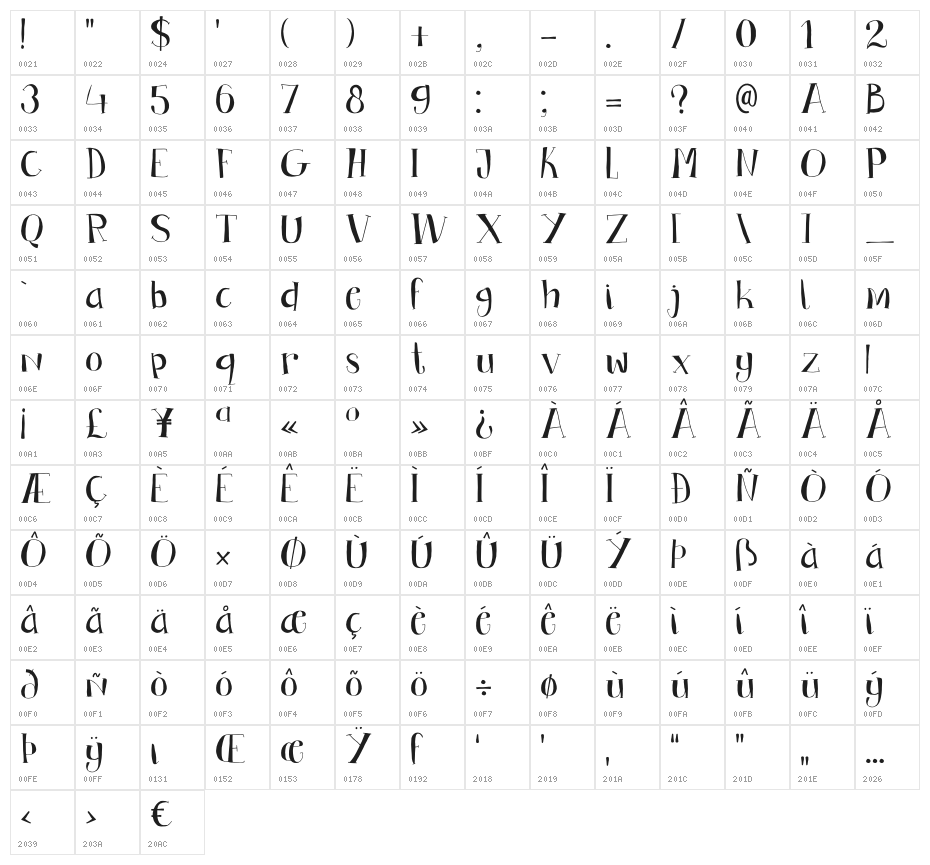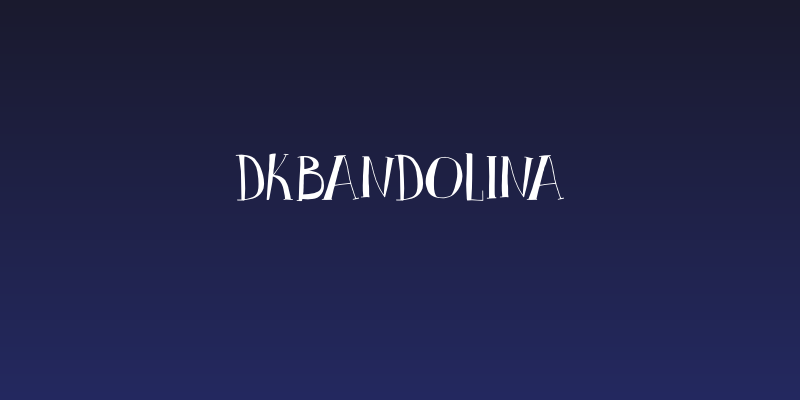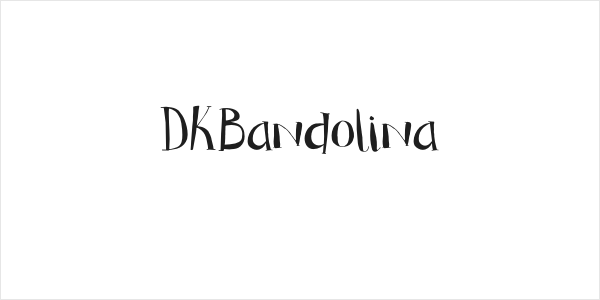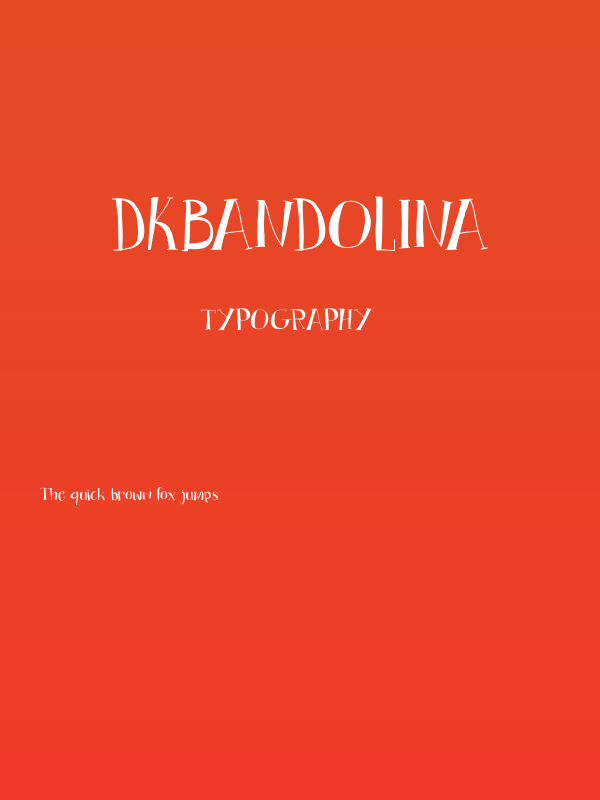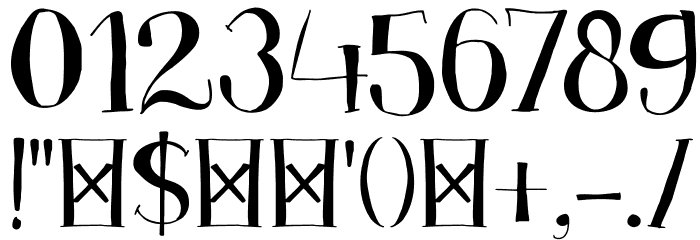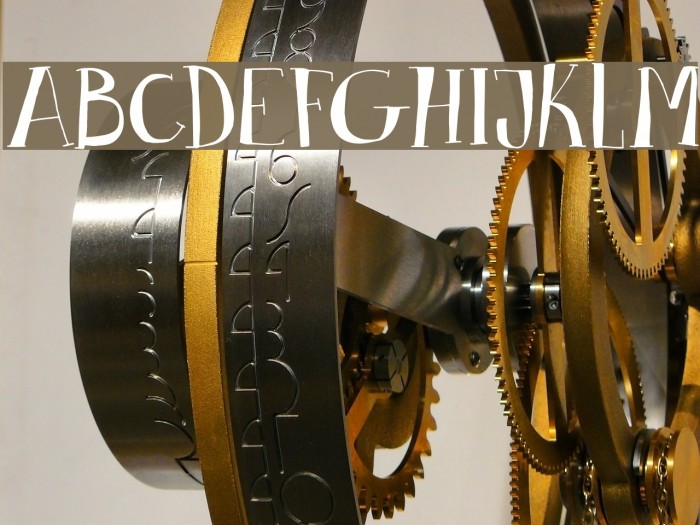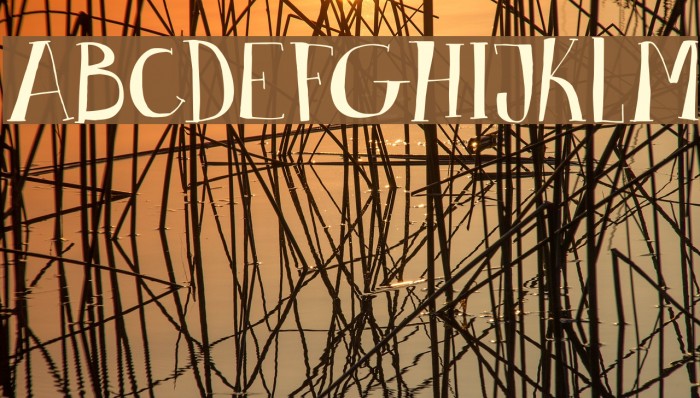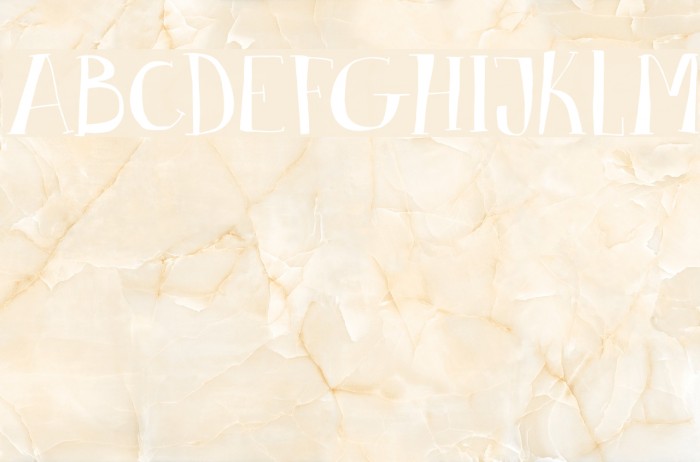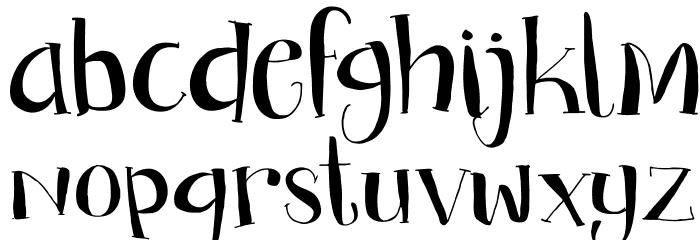
DKBandolina Font
DKBandolina Description
This font features a playful and whimsical style, characterized by its irregular and dynamic letterforms. The uppercase letters have a tall, narrow appearance with varying stroke widths, giving them a lively and energetic feel. The lowercase letters maintain this playful aesthetic, with some characters exhibiting unique loops and curves. The numbers are equally dynamic, with a mix of rounded and angular shapes. Special characters are creatively designed, adding to the font's overall charm. This font's hand-drawn quality makes it stand out, offering a sense of creativity and fun.
| Proposed Projects | Ideal for children's books, playful branding, creative posters, and whimsical invitations. |